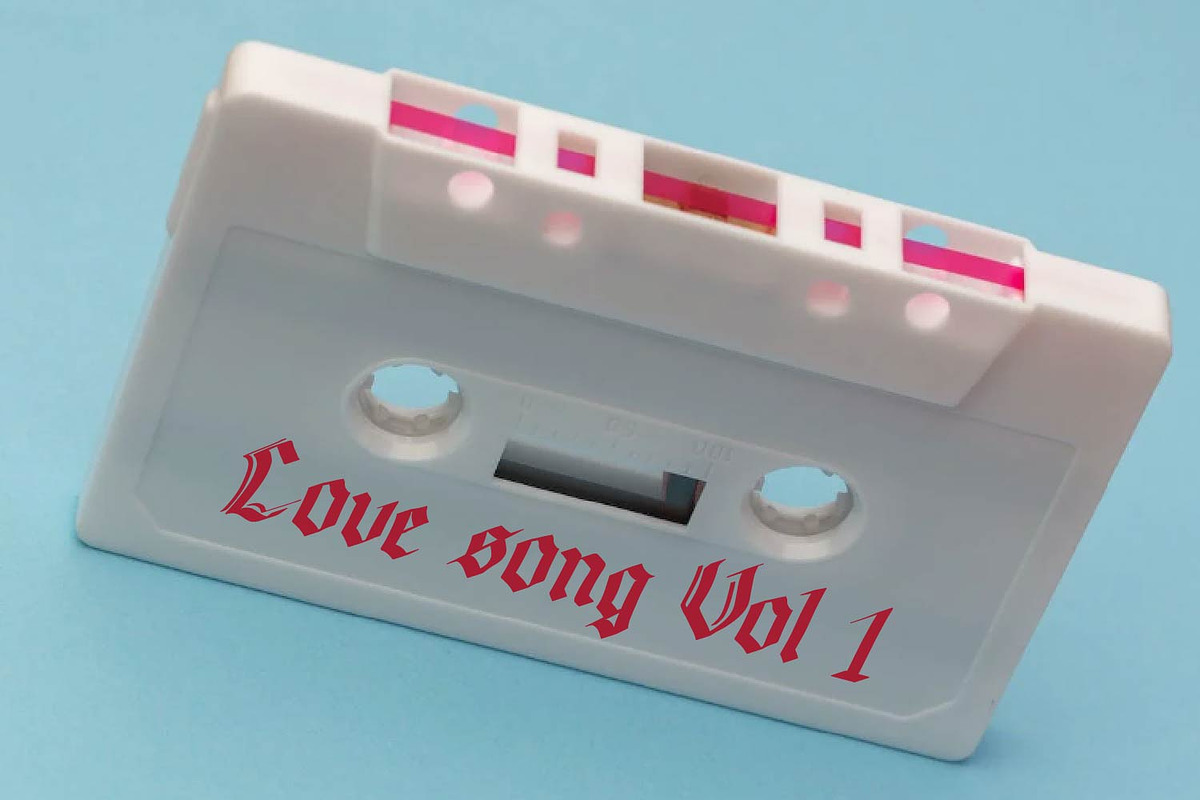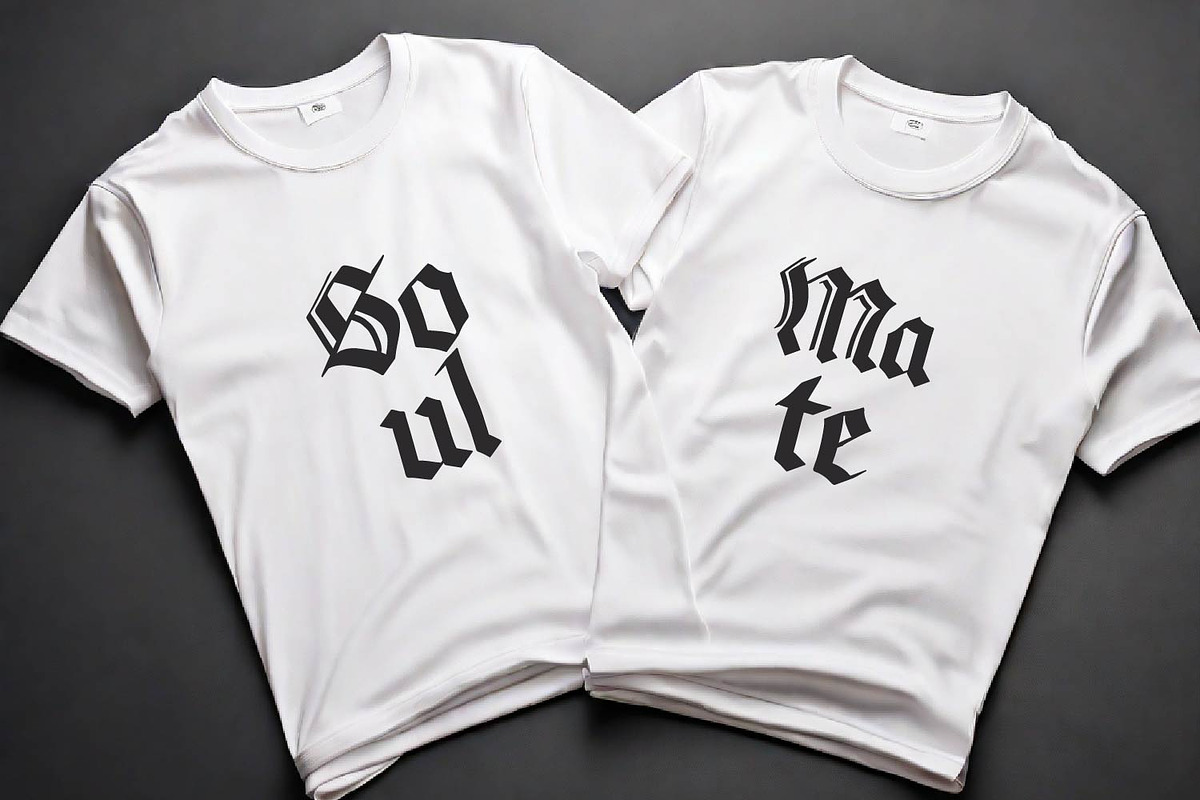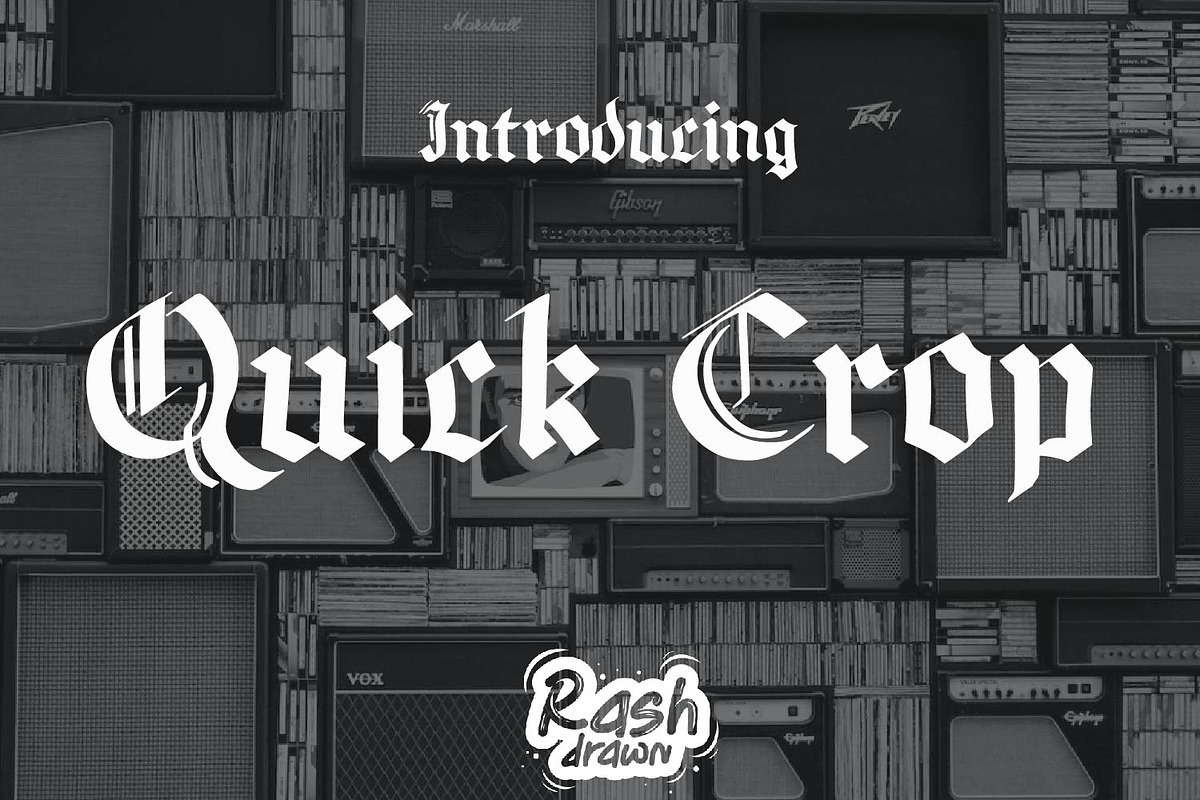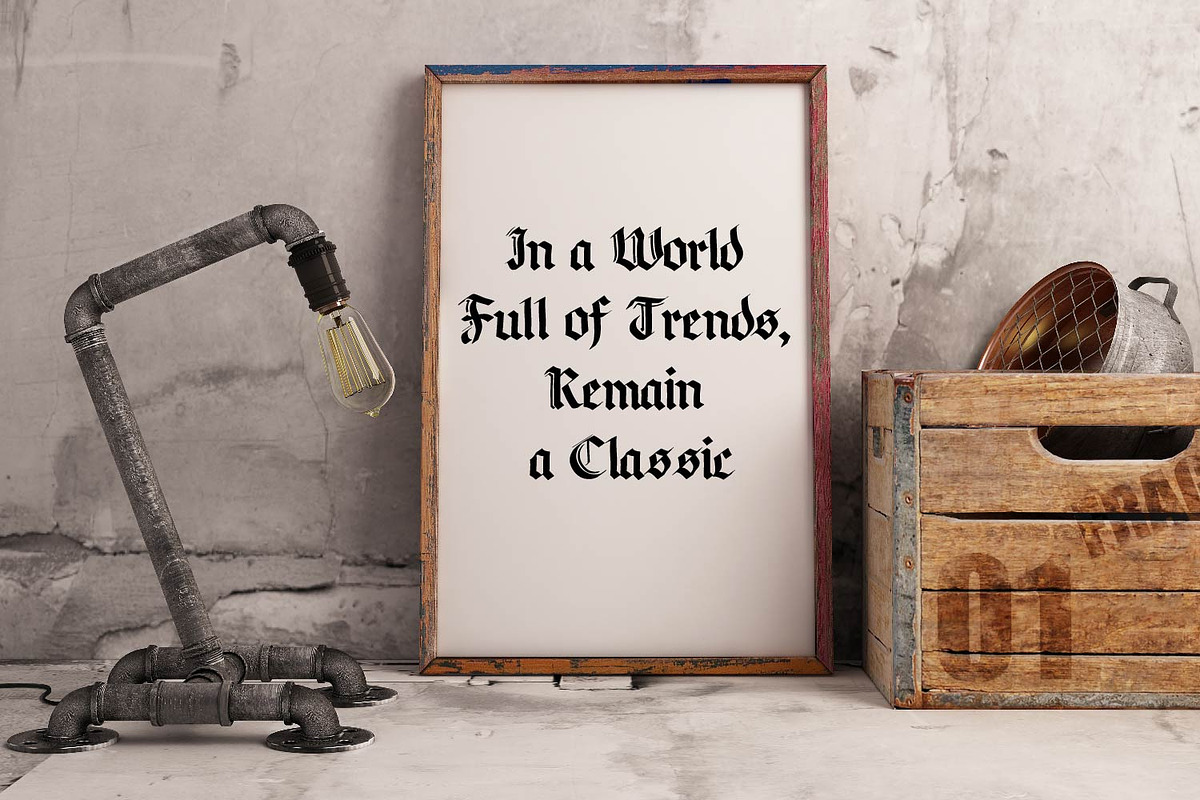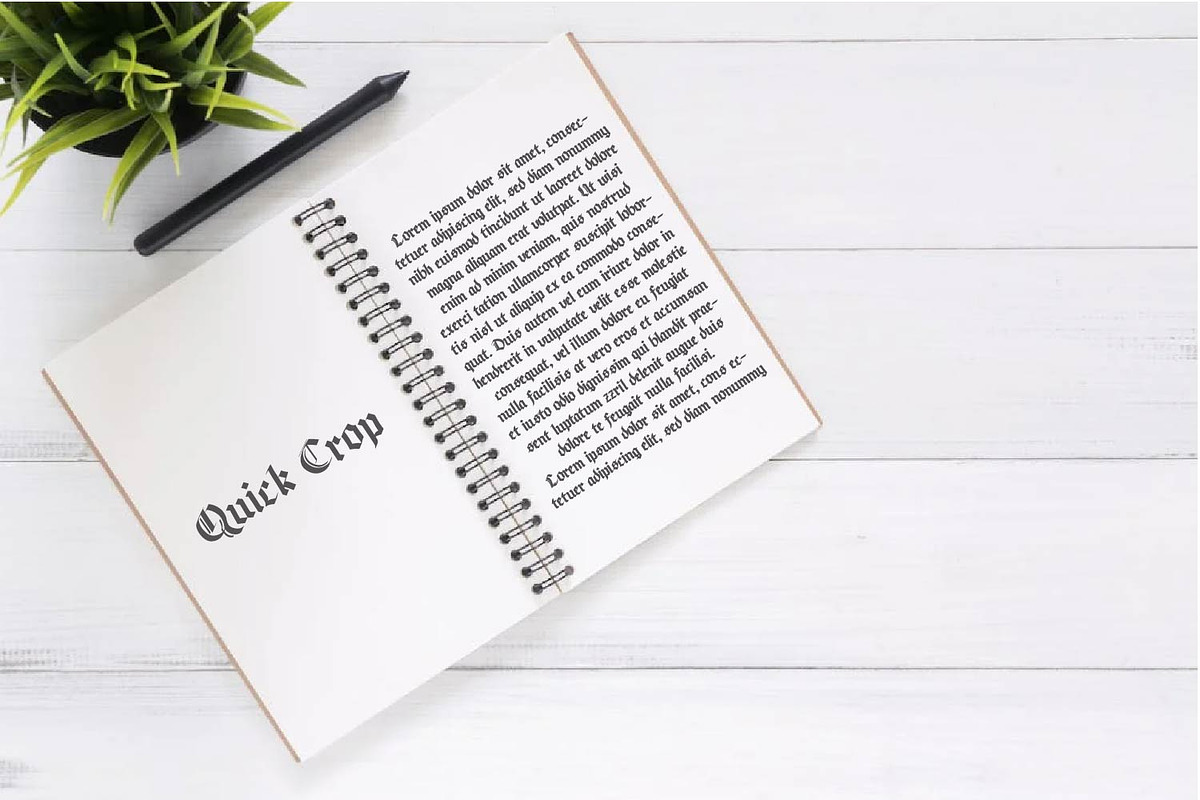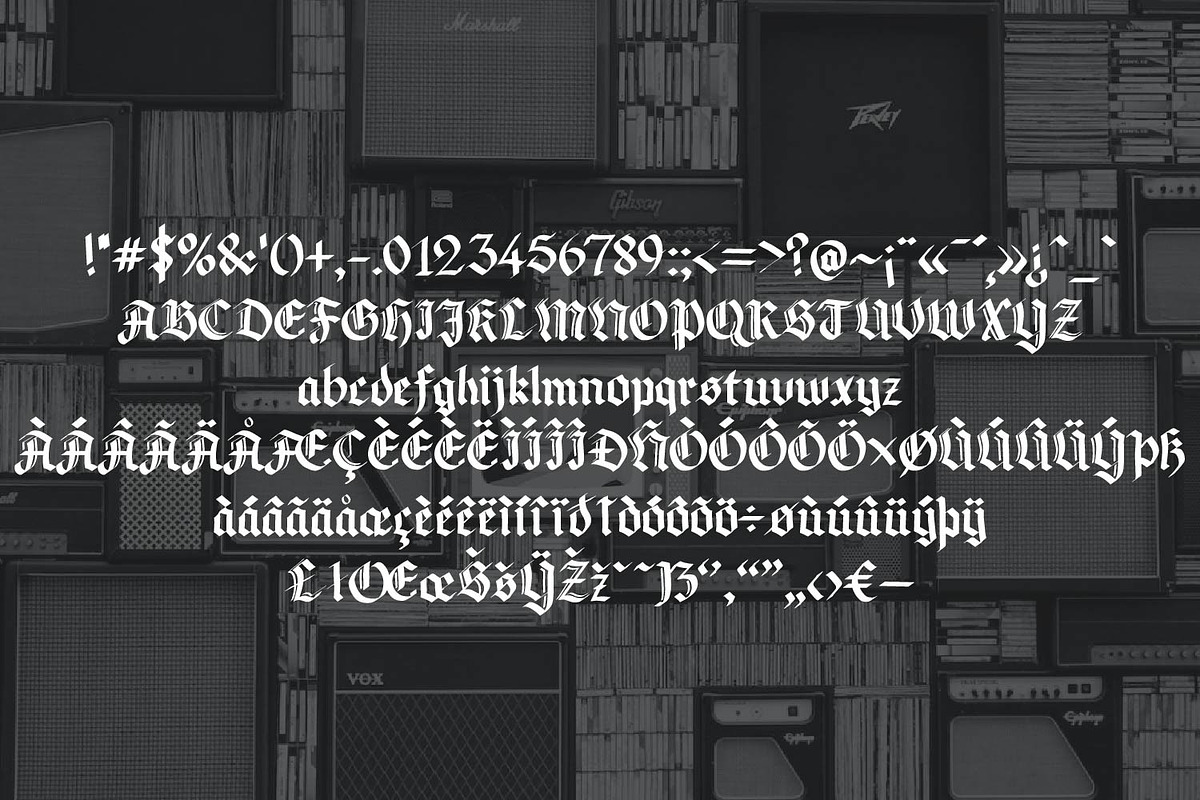
Quickcrop
Quickcrop is a modular blackletter typeface. It has a unique design and experimental shape. It can be used in all kinds of projects from branding, editorial to fashion graphics and packaging.